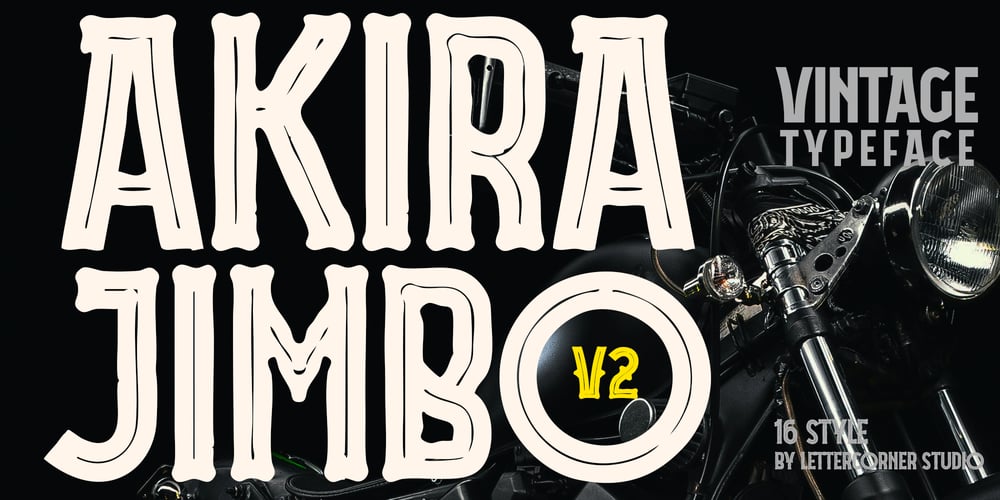
Akira Jimbo v2 Font Family was designed by Muhammad Afif Ersya and published by Mevstory Studio. Akira Jimbo v2 contains 16 styles and family package options. Akira Jimbo v.2 Font will gives a feel of vintage, classic, old, handmade looked like by Lettercorner Studio. It contains uppercase, lowercase, punctuation and symbols. Freudian is is perfect for people looking for vintage aesthetic or hand drawn logo. Suitable for any graphic designs such as branding materials, t-shirt, print, business cards, logo, poster, t-shirt, photography, quotes, etc.